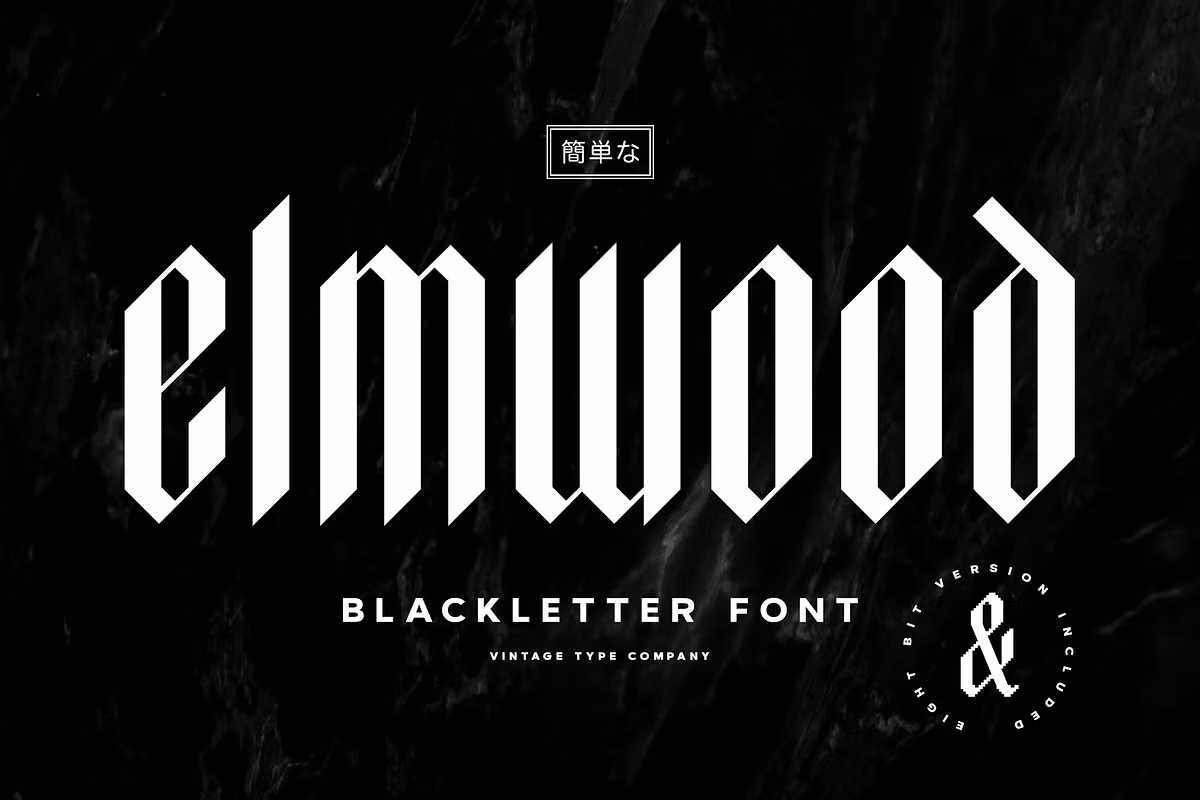
Elmwood Blackletter Display Font Free Download is a bold and striking typeface that embodies the traditional elegance of blackletter fonts with a modern twist. Its intricate and dramatic letterforms make it perfect for high-impact projects like logos, posters, book covers, branding, and designs that need a historic or gothic touch.
Elmwood’s strong presence and distinct styling evoke the feeling of ancient manuscripts and medieval design, making it ideal for projects that require a sense of power and heritage. Whether you're designing for a gothic-themed event, creating a vintage logo, or adding an edge to your typography, Elmwood brings a unique and memorable aesthetic.